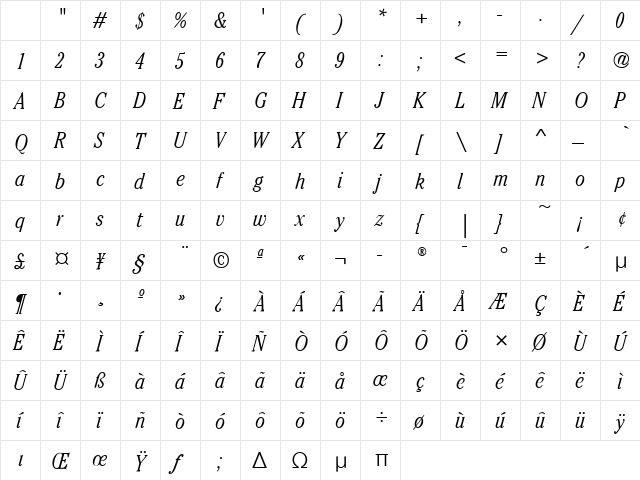
Complete CheltenhamCdITC Light Italic glyph index. Displaying only characters natively supported by CheltenhamCdITC Light Italic font.
CheltenhamCdITC is a composed and adaptable typeface that performs quietly and consistently across a wide range of design contexts. The slanted form adds forward momentum and visual energy. Its slender proportions lend an understated elegance to any composition.
Pro Tip: Use CheltenhamCdITC for emphasis, pull quotes, and subheadings where its slanted energy can add rhythm to the layout.